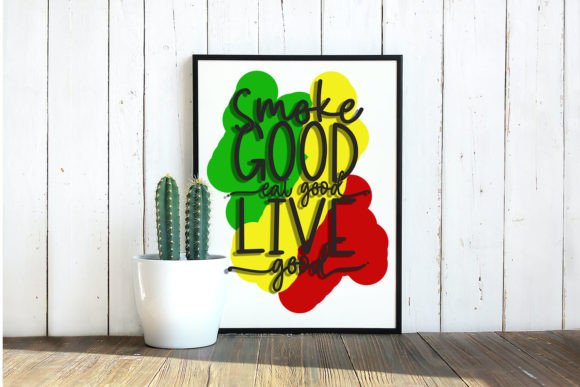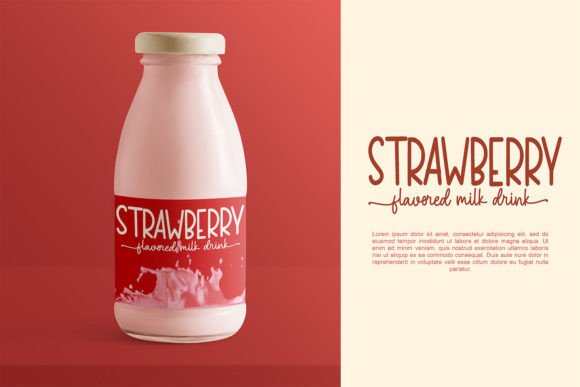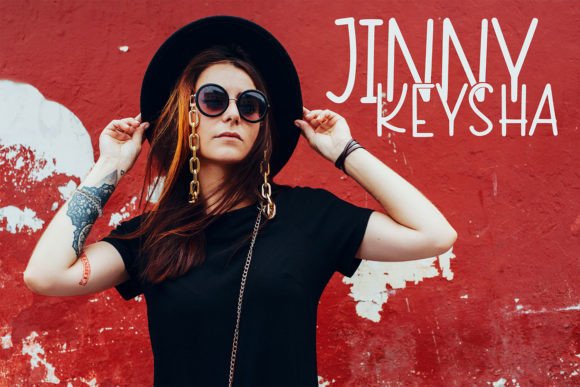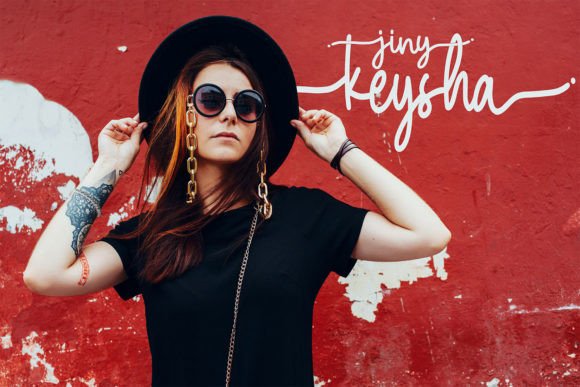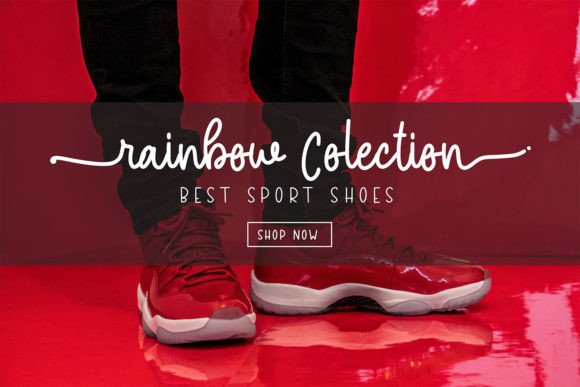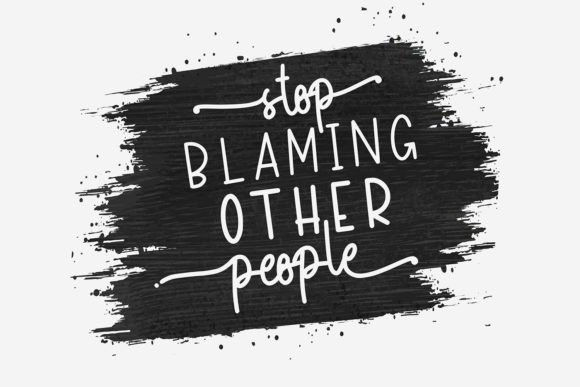
Introduction to Monday Rainbow Font
Do you ever find yourself rummaging through your digital files, searching for the perfect font to add a touch of personality to your creative project? For many designers, this search can be a daunting task, especially when working on a time-sensitive project. But what if you stumbled upon a font that could elevate your design to the next level, making it stand out from the crowd?
Enter the Monday Rainbow Font, a delightful handwritten duo that’s perfect for any occasion. This free download is a treasure trove for designers, offering a high-quality design resource that’s versatile enough to be used in a variety of projects, from digital designs and presentations to crafts and greeting cards.
With its transparent background and beautiful script and sans options, the Monday Rainbow Font is an absolute must-have for any designer looking to add a personal touch to their work.
Key Features of Monday Rainbow Font
- High-quality, professional font designed for creative projects, suitable for various design resources.
- Available for free download with transparent background, ideal for use in graphics, logos, and digital art.
- Features a unique, colorful design with a playful twist, perfect for adding a touch of whimsy to your creative project.
- Designed to be highly customizable, with a focus on color and style, making it a valuable design resource for creative professionals.
Honest Review: Monday Rainbow Font
I recently came across the Monday Rainbow Font while searching for a fun and creative project design resource. As a designer, I was excited to give it a try and see how it would perform.
Here’s what I liked about the Monday Rainbow Font: ✨ It’s available as a free download, which is always a plus. The font has a transparent background, making it easy to work with in design projects. I also appreciated the high-quality design and attention to detail that went into creating the font.
Here are some of its key features:
- Unique, colorful design that adds a pop of fun to any project
- Transparent background for easy design integration
- High-quality design with detailed typography
While the Monday Rainbow Font is a great resource, there are a few limitations: ⚠️ It may not be suitable for all design projects, particularly those requiring a more professional or formal tone. Additionally, the font may not be as versatile as some other design resources.
Overall, I’m impressed with the Monday Rainbow Font and would definitely recommend it for creative projects looking for a fun and playful touch. Just be aware of its limitations and use it accordingly.
Tips for Getting the Most Out of the Monday Rainbow Font
Experiment with layering the font on top of images or textures to add depth and interest. Also, consider combining the font with other design resources to create a unique and visually appealing design.
The Monday Rainbow Font is ideal for social media graphics, flyers, posters, and other marketing materials. Its versatility makes it a valuable design resource for any creative project.